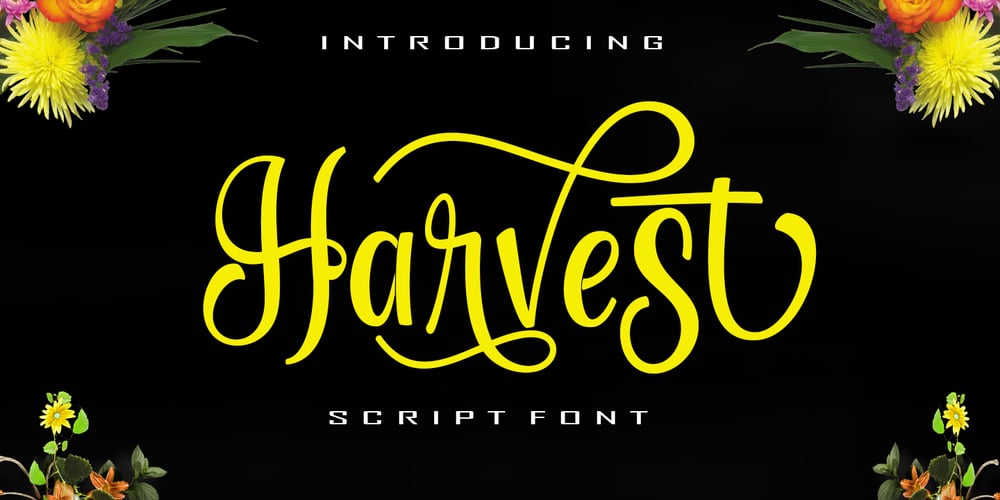
Harvest Script
Harvest Script font
Harvest Script Font Family was designed by Teuku Muslyawan and published by DonyaDesign. Harvest Script contains 1 styles and family package options. Harvest Script is a soft and sweet calligraphic typeface, with characters dancing along the baseline. It has a casual and elegant touch. Can be used for various purposes such as logos, wedding invitations, headings, t-shirts, letterheads, signage, labels, news, posters, badges etc. OpenType features with alternative styles, ligatures, and multiple language support.Need help? If you need help or advice, please contact me by email.Thank you!